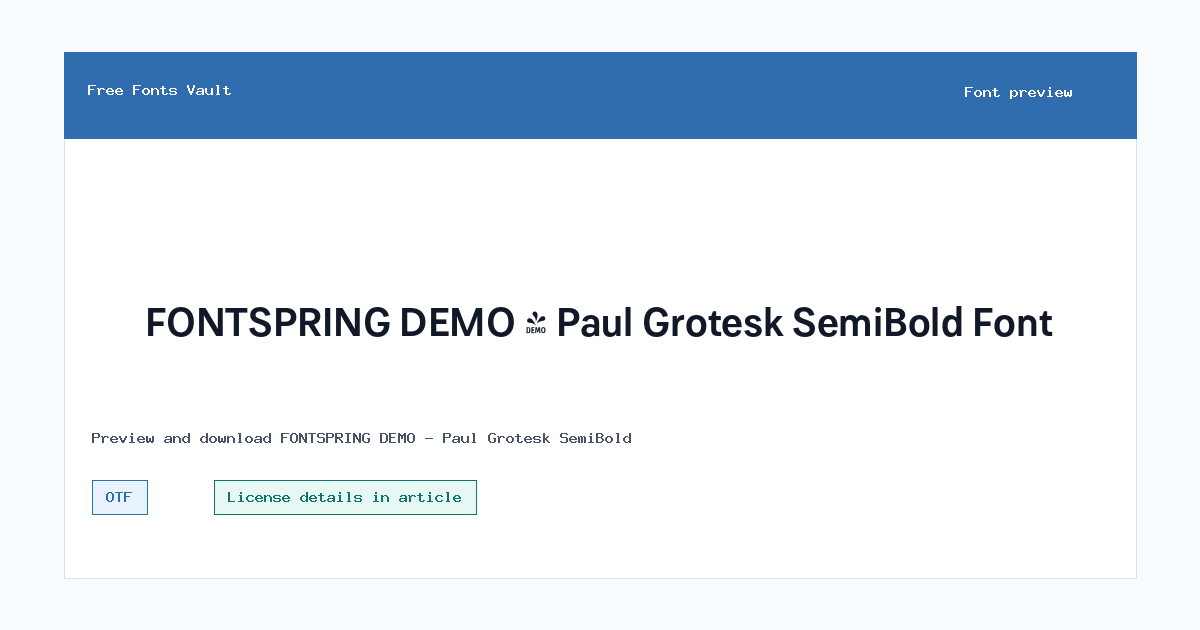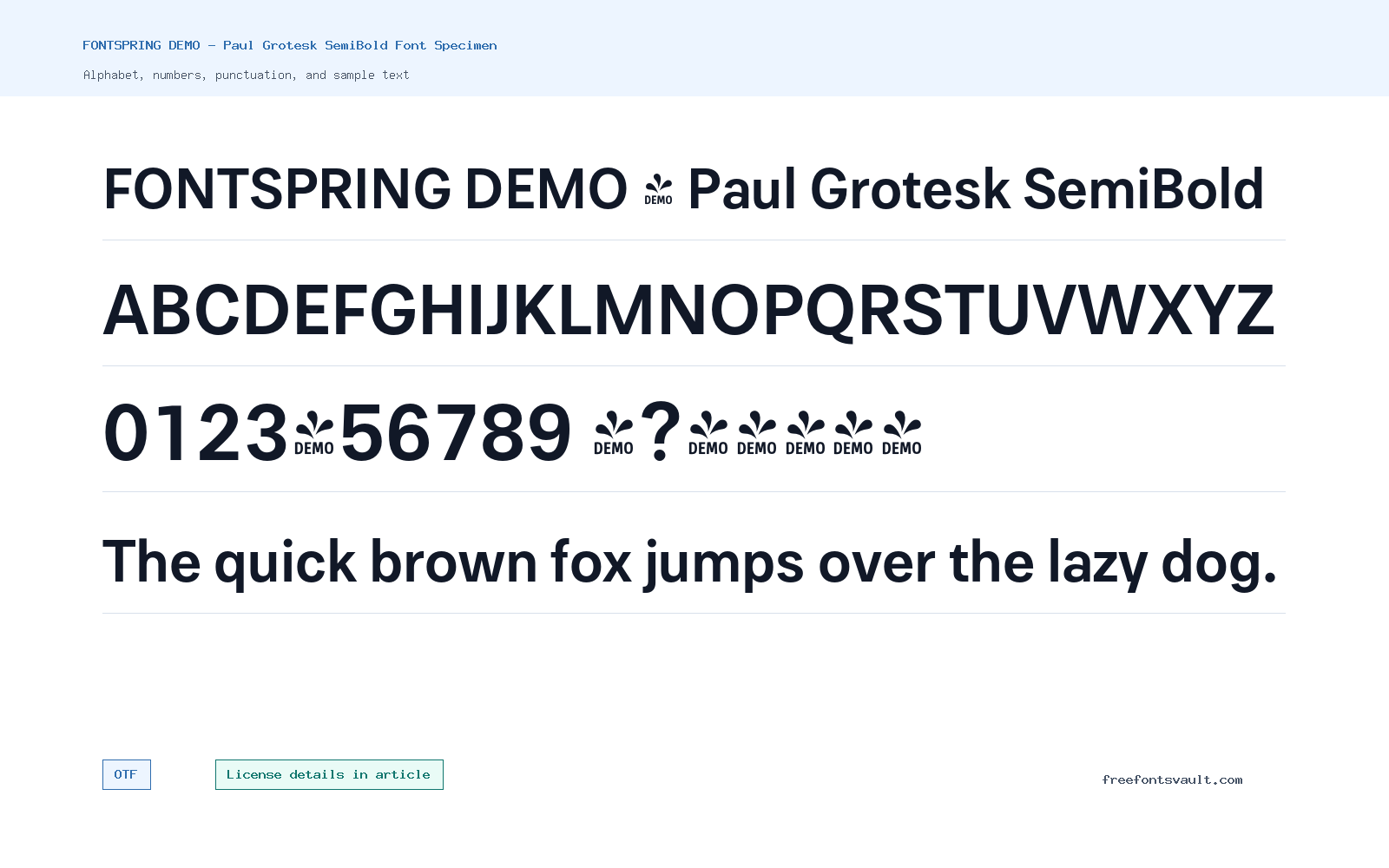
FONTSPRING DEMO - Paul Grotesk SemiBold
- Designer Fargus Meiser
- Foundry Lukas Bischoff
FONTSPRING DEMO – Paul Grotesk SemiBold font.
FONTSPRING DEMO – Paul Grotesk SemiBold is a semi-bold OpenType font for visitors who want to test the look of Paul Grotesk in heavier text before choosing a license.
About FONTSPRING DEMO – Paul Grotesk SemiBold
FONTSPRING DEMO – Paul Grotesk SemiBold has the practical feel of a modern grotesk sans serif in a stronger 700 weight. The semi-bold weight gives headlines, buttons, short labels, and display text more presence than a regular style without becoming as heavy as a full bold cut. Use the preview tool to check its spacing, letter shape, and rhythm in the exact words you plan to set, especially if your design depends on short names, numbers, menu labels, or tight headline lines. Since the file is marked as a demo, it is best treated as a test font rather than a production-ready commercial asset.
This style is most useful when you need clean emphasis in short text. Try it for website hero headings, navigation accents, poster-style titles, app interface labels, packaging mockups, and social graphics where a compact sans serif can stay readable. Keep body text tests realistic: semi-bold fonts can feel dense in long paragraphs, especially at small sizes. If you plan to pair it with another typeface, test it beside a lighter sans serif or a plain serif so the stronger weight has room to stand out. Also check uppercase words, punctuation, and numbers in the preview, because those details often decide whether a grotesk face works well in a real layout.
- Semi-bold 700 weight with normal style settings, useful for headings, labels, and short emphasis text.
- Website headings, buttons, menus, and interface labels that need a firm sans serif weight.
- Posters, mockups, social graphics, branding drafts, and short display text where visitors want to test Paul Grotesk before licensing.
What weight is this font?
It is listed as a 700 weight, which is commonly used as a bold or semi-bold strength depending on the family design.
What is this font best used for?
It is best for short, clear text such as headings, labels, buttons, posters, and mockups. For long paragraphs, test readability carefully because the heavier weight can feel dense.